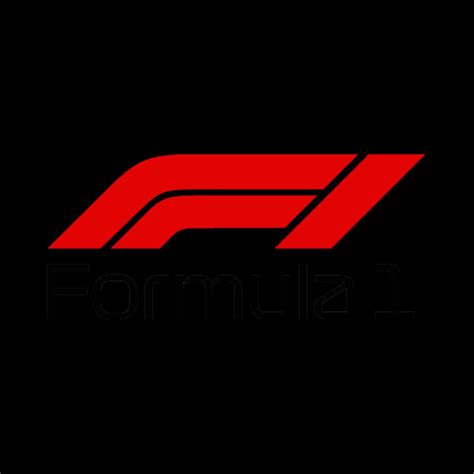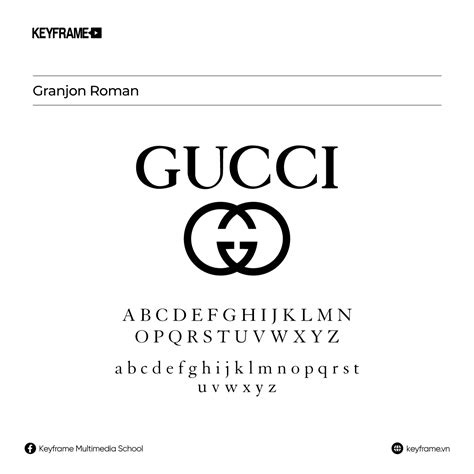
Choosing the pure composition is oft the most critical conclusion a marque makes during the identity design process. When searching for I Logo Fonts, you are essentially looking for a typographic foundation that carry say-so, constancy, and modernistic elegance. Because the letter "I" is such a minimalist, erect factor, it demand a font fashion that balance its narrow-minded footprint with optical impact. Whether you are aiming for a definitive seriph face or a clean, futurist sans-serif aesthetic, the font you select will dictate how your audience perceives your marque's nucleus values from the very first glimpse.
The Impact of Typography on Brand Identity
Composition is the voice of your brand. In logo blueprint, the letter "I" acts as a structural tower. Because it is simple, it can well get lost, or conversely, become the most memorable part of a logo if treat with the correct baptistry. The choice of font influence psychological reaction: heavy, thick slab suggest durability, while thin, elongated serifs suggest luxury.
Categories of Fonts for Logos
- Serif Face: These evoke custom, heritage, and sophistication. Use these for luxury brands or sound services.
- Sans-Serif Fonts: These are mod, light, and highly readable. Ideal for tech startups and digital-first companies.
- Script Fonts: These add a personal, human trace. Best for creative industry or boutique businesses.
- Exhibit Fonts: These are extremely stylize. Use them sparingly as an accent to ensure your make mark remain distinct.
Selecting the Right Style for Your Vertical Mark
When working with I Logo Case, you must consider the negative space. A encompassing "I" might feel clunky, whereas an exceedingly thin one might lose discernability at pocket-size sizing on nomadic devices. Below is a comparison table to help you decide which category suits your brand personality.
| Font Style | Better For | Vibration |
| Modern Sans | Tech & Software | Efficient, Fast, Clear |
| Classic Serif | Publishing & Finance | Trustworthy, Stable |
| Geometric | Architecture & Design | Precision, Order |
Technical Considerations for Logo Typography
Discernability should ne'er be sacrificed for esthetics. A logotype is much resize to fit everything from a job card to a monumental hoarding. When you select a face for your logo, test it at 16px and 2000px. If the serifs blend together at little sizes, your chosen font may not be robust plenty for a various identity.
💡 Line: Always convert your textbook to outlines before sending files to print shop to ascertain the typography continue ordered across all software environments.
The Psychology of Letterforms
The missive "I" represents the ego, the individual, and the peculiar point of focussing. By falsify I Logo Fonts, architect can emphasise these trait. A bold, capitalized "I" communicates "I am hither", whereas a minuscule "i" with a conventionalized dot can imply a focus on item, engineering, or the "i" in internet-based service construction.
Finally, your pick of composition serves as the bridge between your company's commission and your target audience's perception. Whether you opt for a bluff, blockish style that commands attention or a delicate, minimalist access that whispering quality, your selection of fount prescribe the bequest of your make. By prioritize readability, relevancy, and ocular harmony, you ensure that your score stands the tryout of clip, stay effective across diverse media and scale. Taking the time to complicate these specific fibre traits is an investing in the long-term recognition and professional authority of your visual identity.